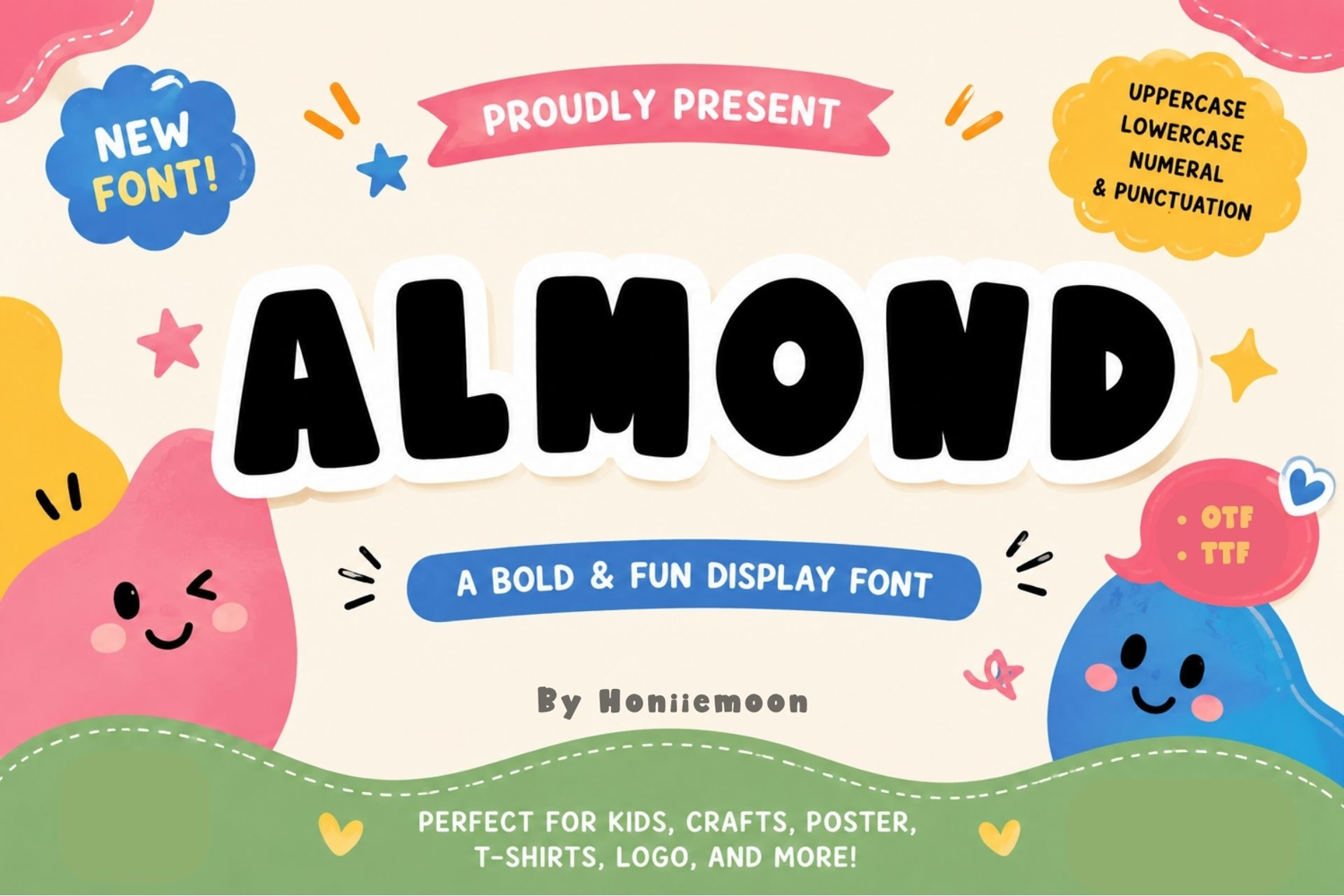
Almond is a cute, bold, and playful display font perfect for kids projects, t-shirts, stickers, sublimation, classroom resources, crafts, and Canva designs. Includes uppercase, lowercase, numbers, punctuation, OTF & TTF files, and multilingual support.